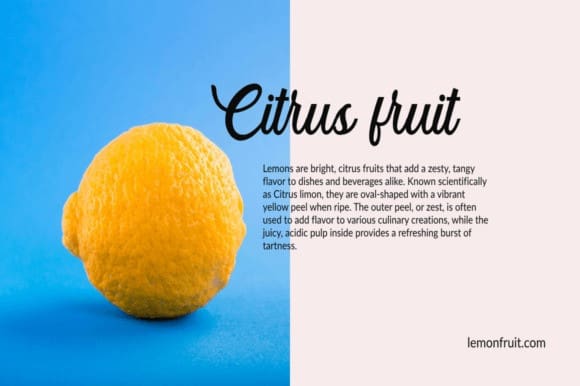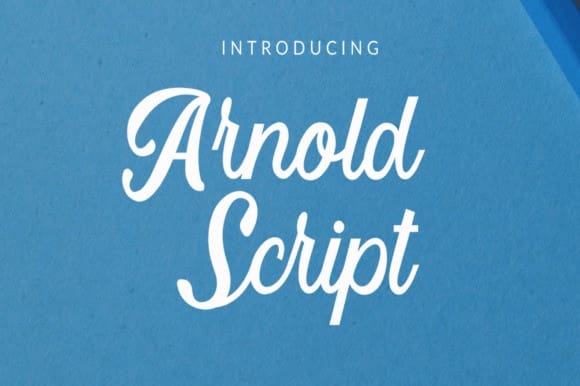
Arnold Script Font
Arnold Script Font, a bold and stylish typeface that embodies elegance and confidence. Designed for the fashion-forward and modern creatives, this script font features smooth curves and dynamic strokes, making it the perfect choice for wedding invitations, apparel designs, logos, and eye-catching typographic projects.
With its bold weight and unique character, Arnold Script is ideal for statement pieces that need to stand out, whether it’s for a fashion brand’s logo or a stylish headline in a wedding invitation. This versatile typeface adds a touch of sophistication and charm to any project, making it a must-have for designers seeking to elevate their work with a sense of luxury and artistic flair.
Bring your designs to life with Arnold Script and make every message unforgettable!